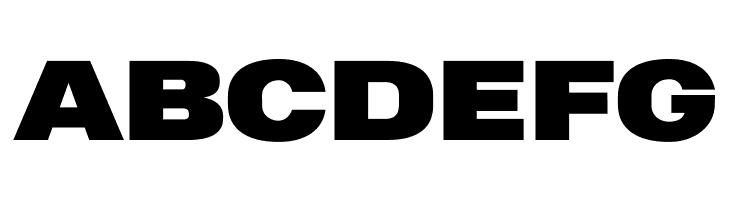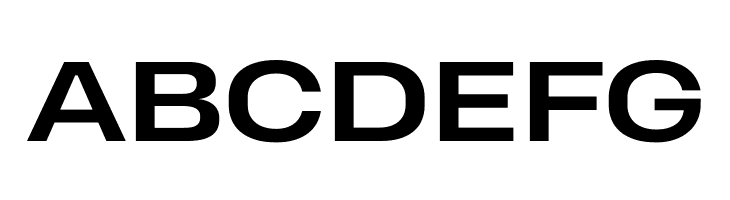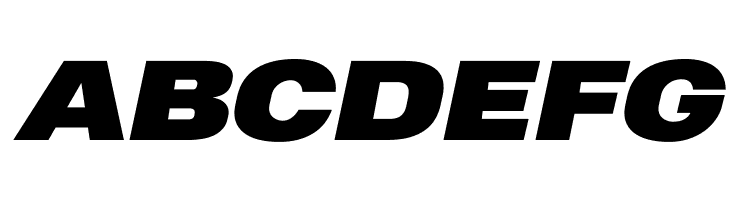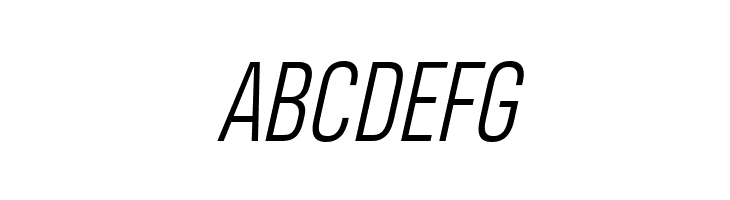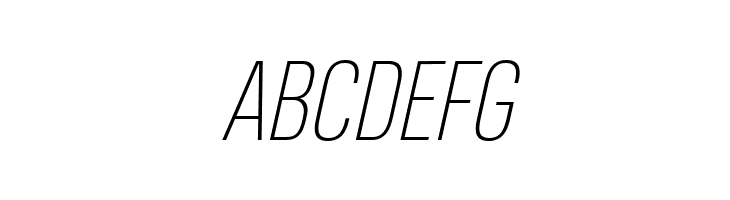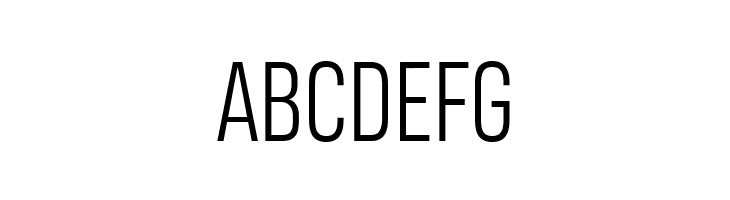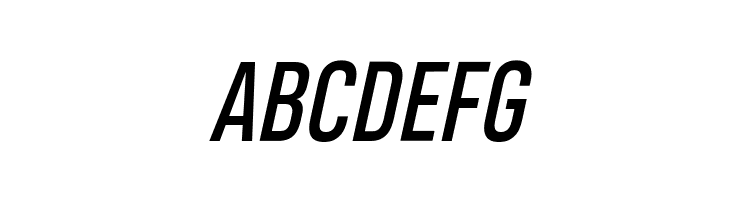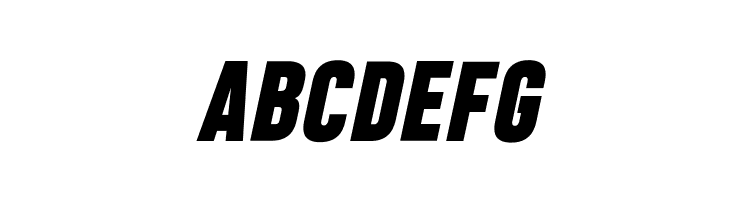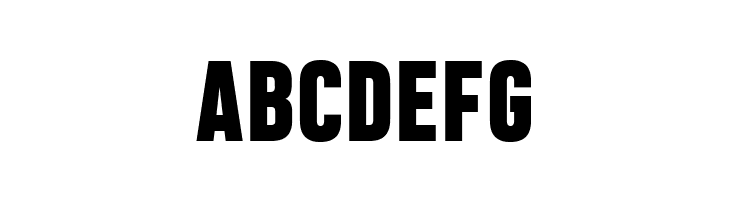
A bold, condensed font with thick, uniform strokes for impactful headlines.
A bold, italic font with a strong, dynamic presence.
A sleek, modern italic font with a condensed and professional appearance.
A modern, light sans-serif font with tall, narrow characters.
A sleek, modern, light italic font with a slightly condensed style.
A modern, thin sans-serif font with a sleek and minimalist design.
A sleek, modern, thin italic font with elongated letterforms.
A bold, wide font with a modern and impactful design.
A bold, wide, and italicized font with a modern and impactful style.
A bold, modern sans-serif font with a wide stance and high legibility.